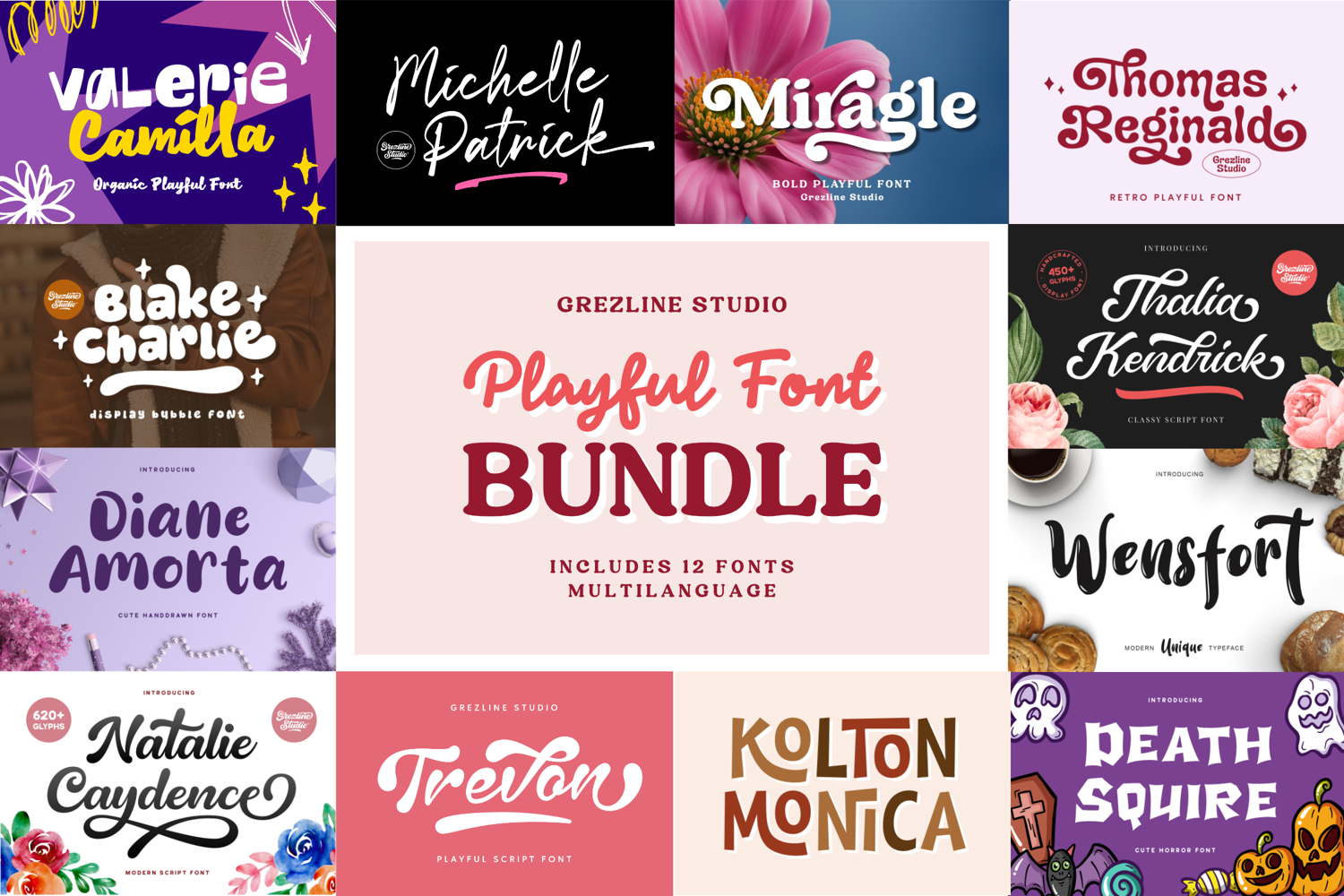
Playful Font Bundle Vol. 2
Create with confidence using Playful Font Bundle Vol. 2 - a collection of 12 thoughtfully designed fonts built to bring warmth, character, and personality into every project.
From bold, bubbly lettering to smooth and expressive scripts, this bundle gives you the creative freedom to craft memorable branding, engaging social media content, standout packaging, invitations, and more. Each font balances playful energy with clean refinement, ensuring your designs stay both fun and professional.
With multilingual support included, this versatile collection is ideal for designers, entrepreneurs, and content creators who want typography that feels fresh, modern, and unmistakably unique.
Fonts Included:
1. Valerie Camilla
2. Michelle Patrick
3. Miragle
4. Thomas Reginald
5. Blake Charlie
6. Thalia Kendrick
7. Diane Amorta
8. Wensfort
9. Natalie Caydence
10. Trevon
11. Kolton Monica
12. Death Squire